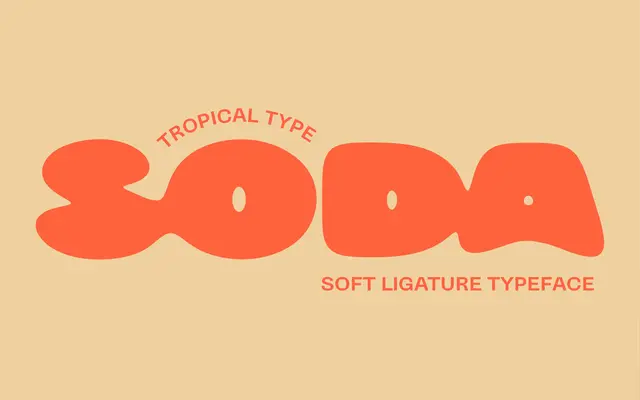
A bundle of six stylistically varied display fonts from Tropical Type, spanning melting sans, edgy serifs and ornate italics.
Six distinct typefaces sold together as a bundle: Soda Sans is a connected melting bold sans, Wranger an all-caps edgy serif, Fender an experimental trippy display, Floss a thin mix-and-match display, Honeychrome Bold a Helvetica alternative with an edge, and Stylebender Contrast Italic an ornate italic suited to pairing with serifs. All fonts include extended Latin glyph coverage and are supplied in OTF, TTF, WOFF, WOFF2 and SVG formats. Full commercial use is included with purchase.
The pack contains six stylistically distinct display typefaces ranging from a melting bold sans to an ornate italic, making display the only applicable umbrella category.